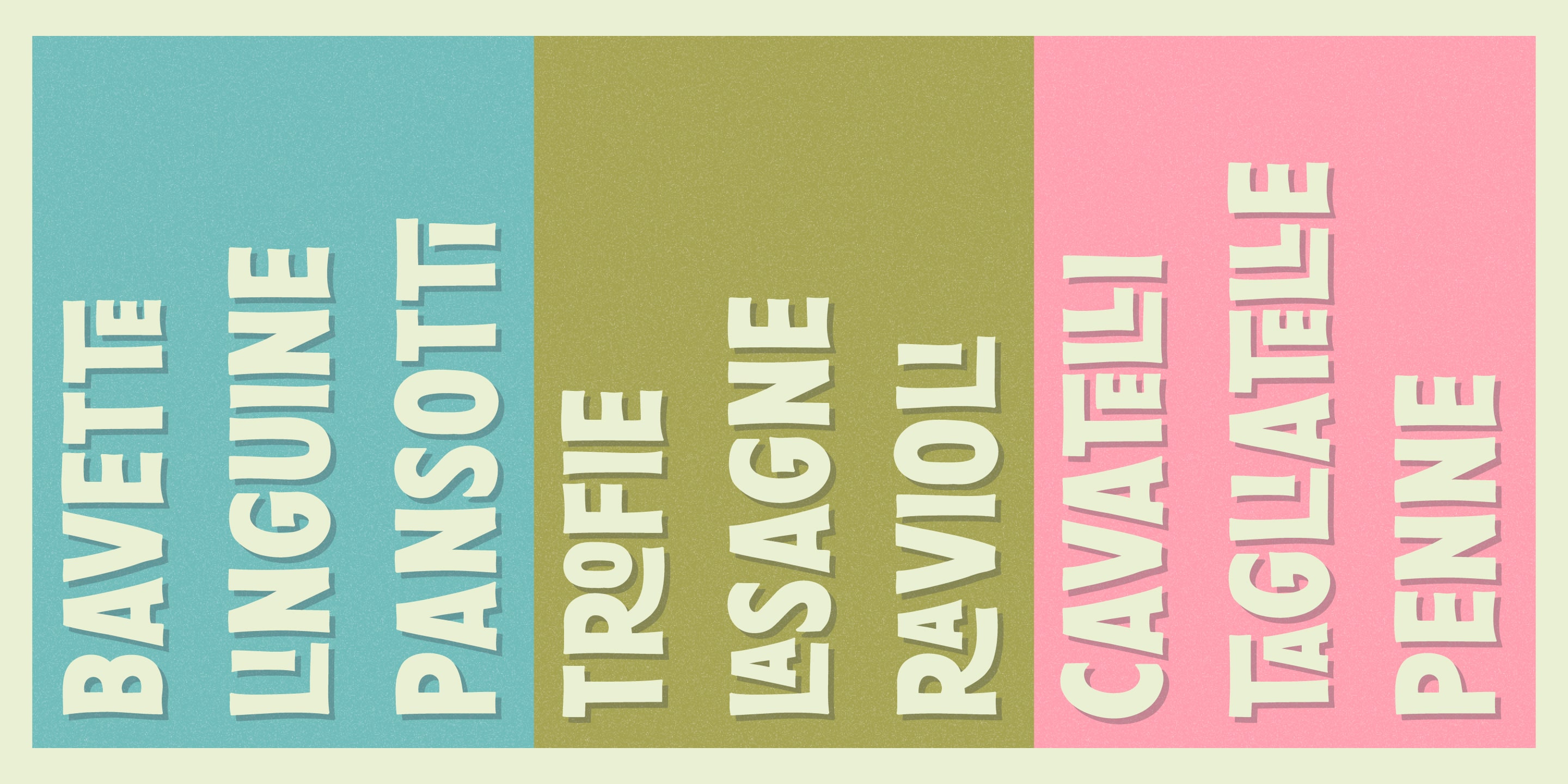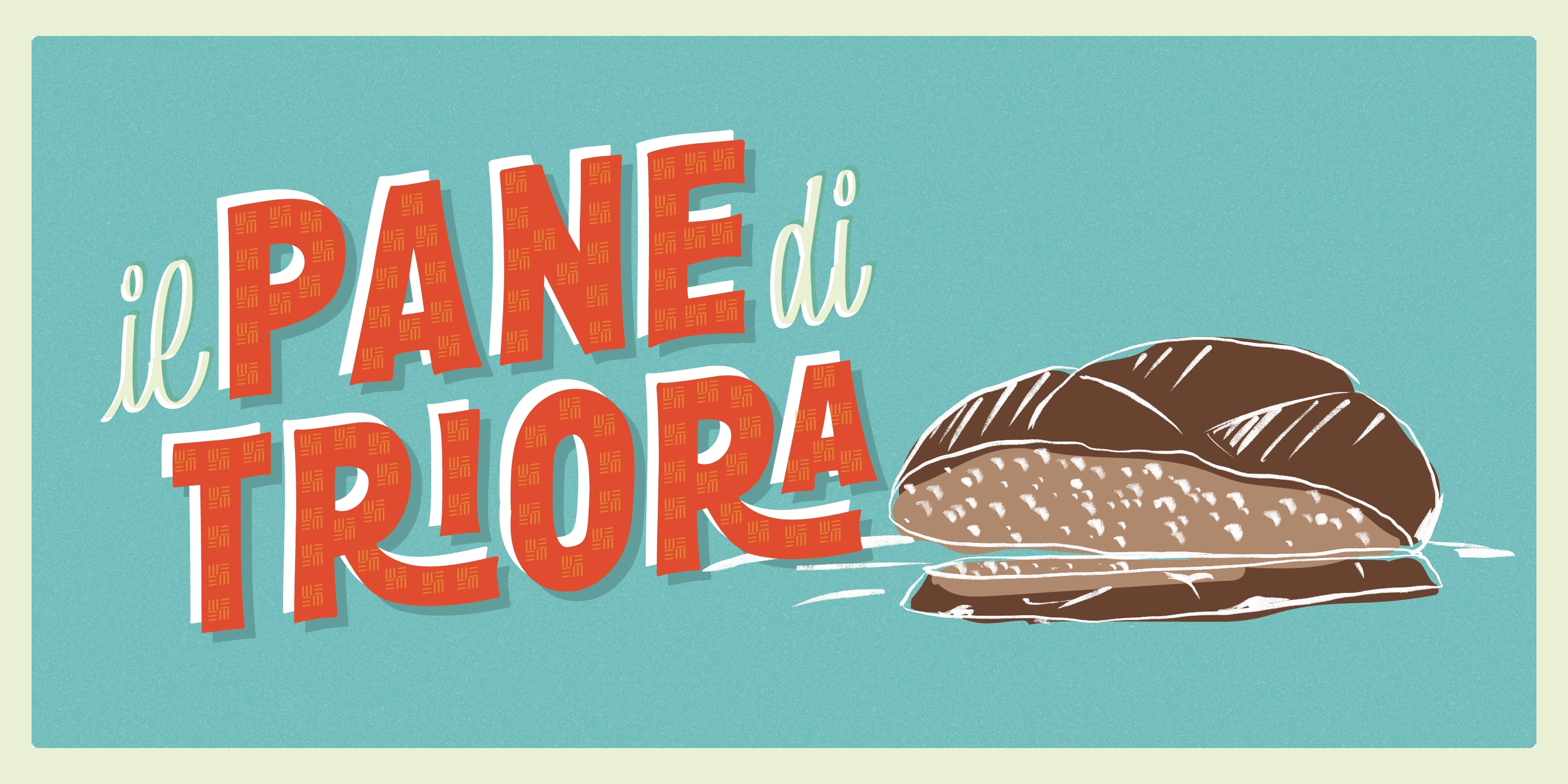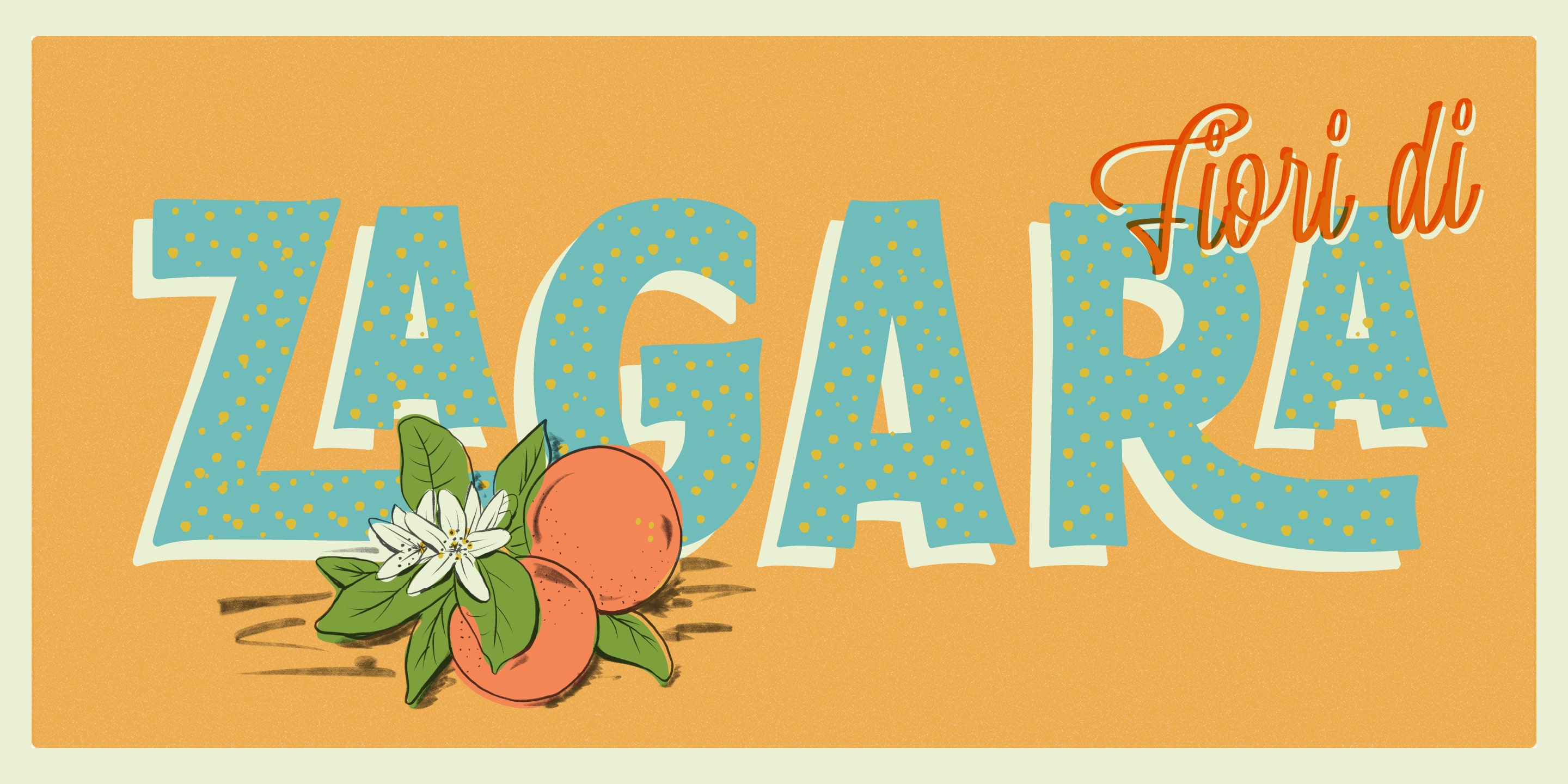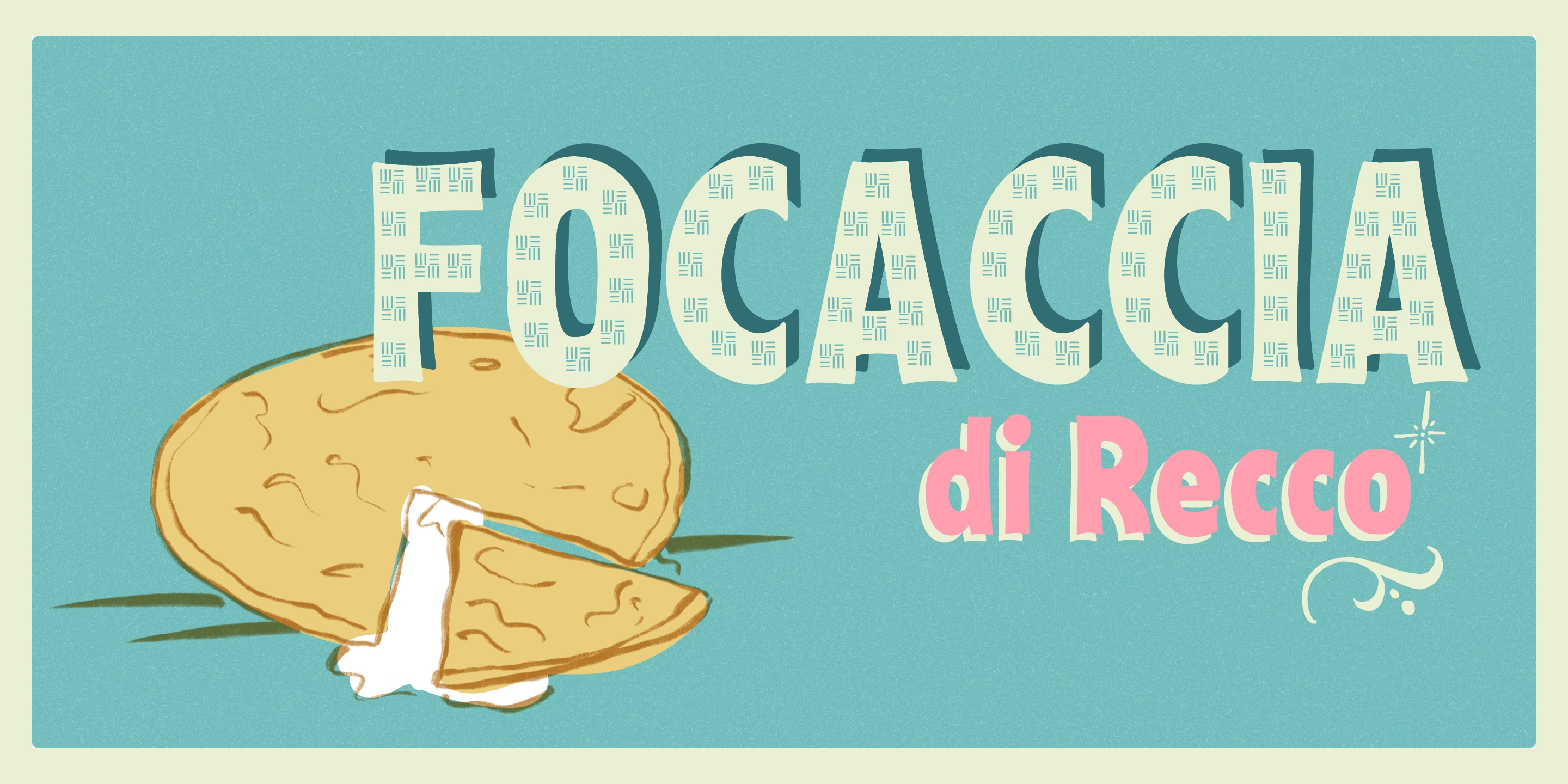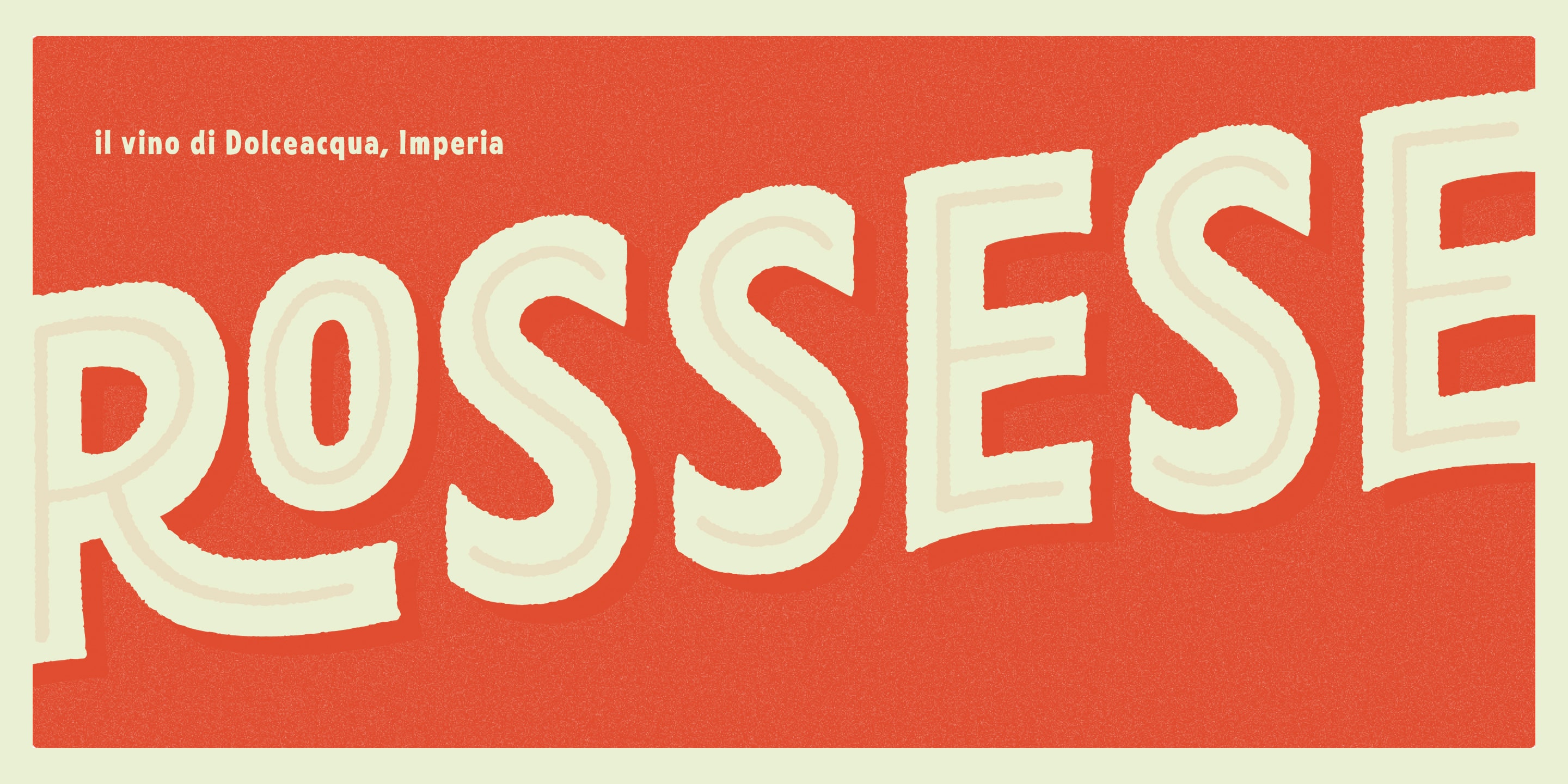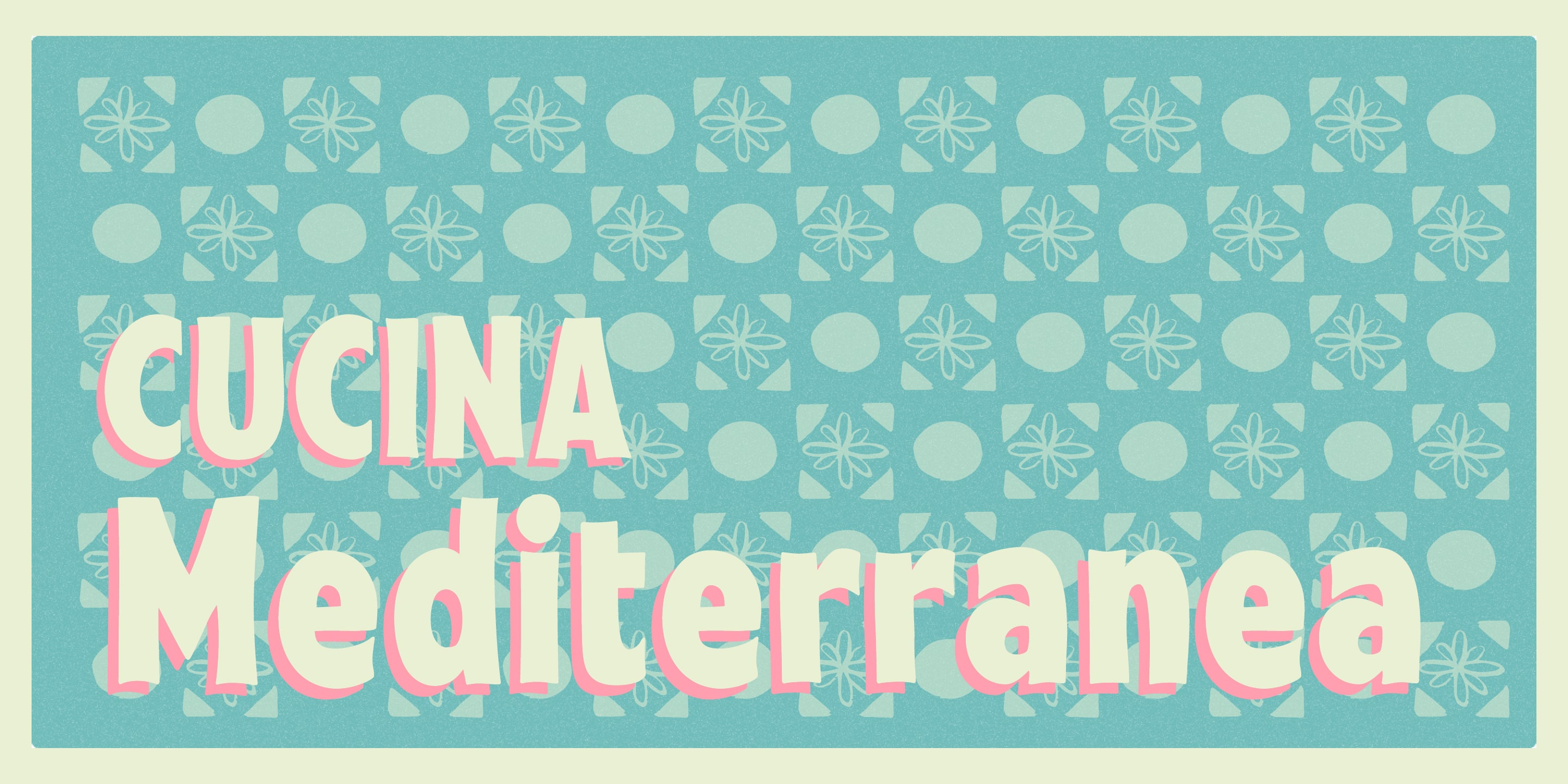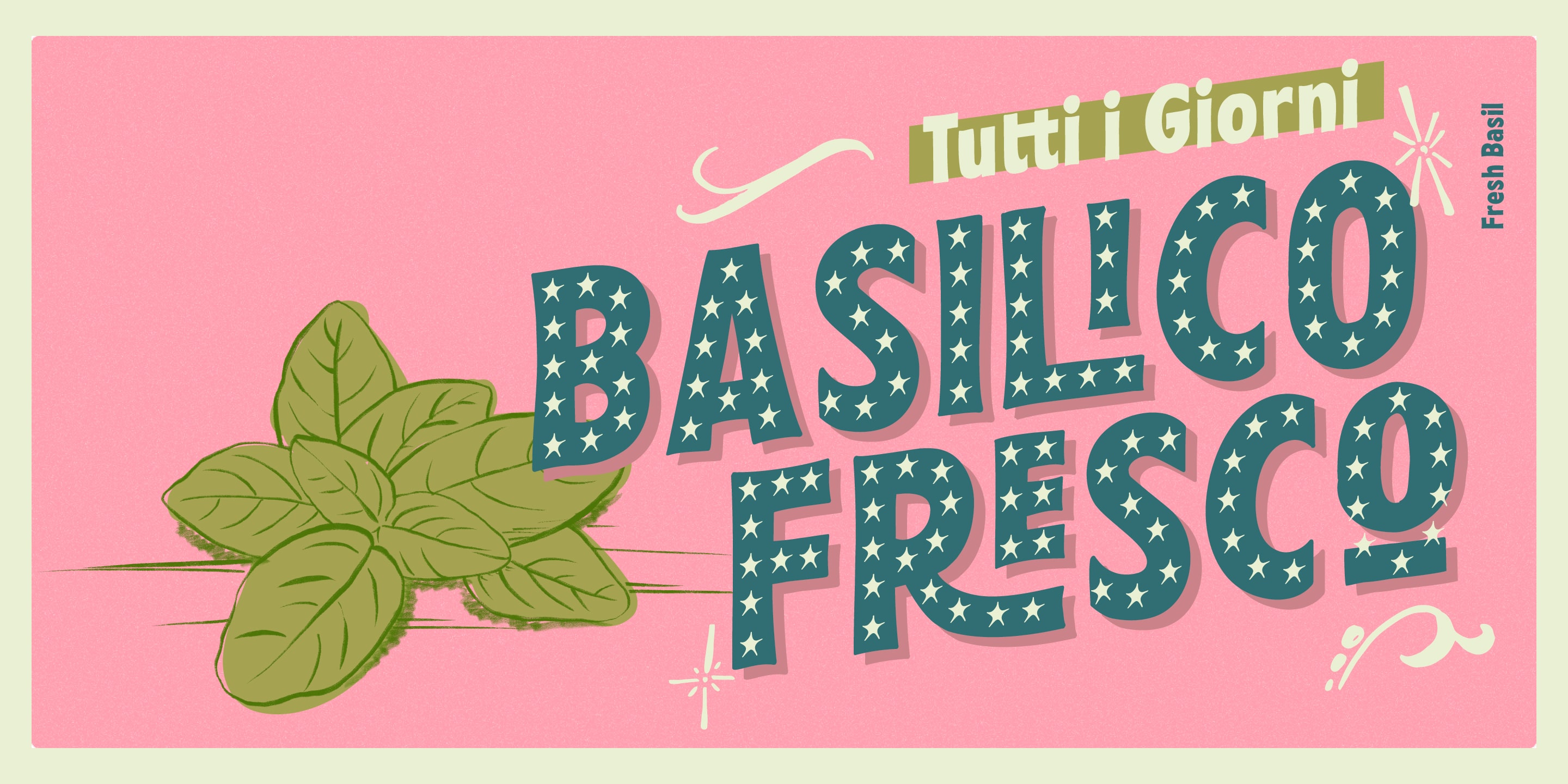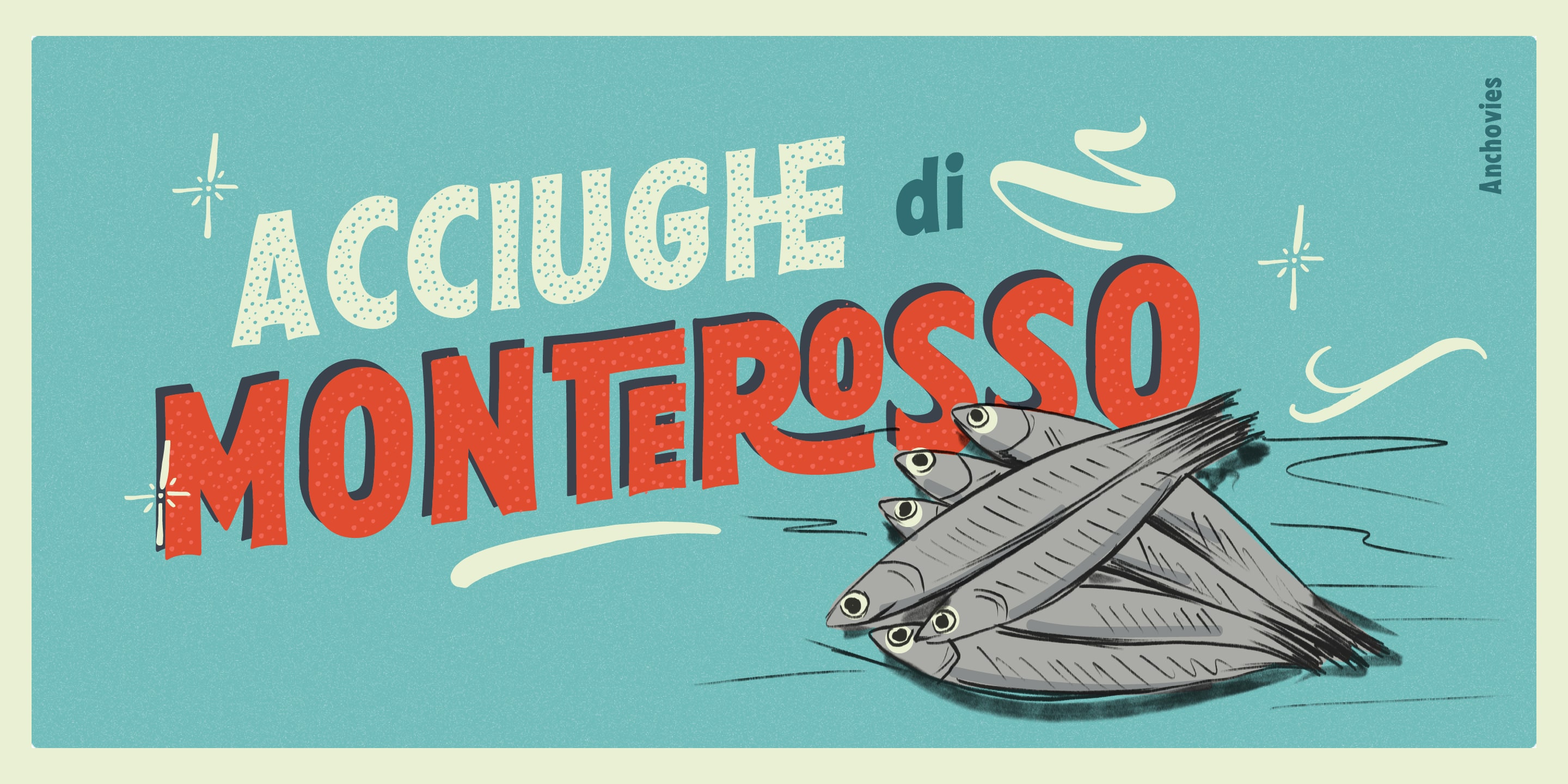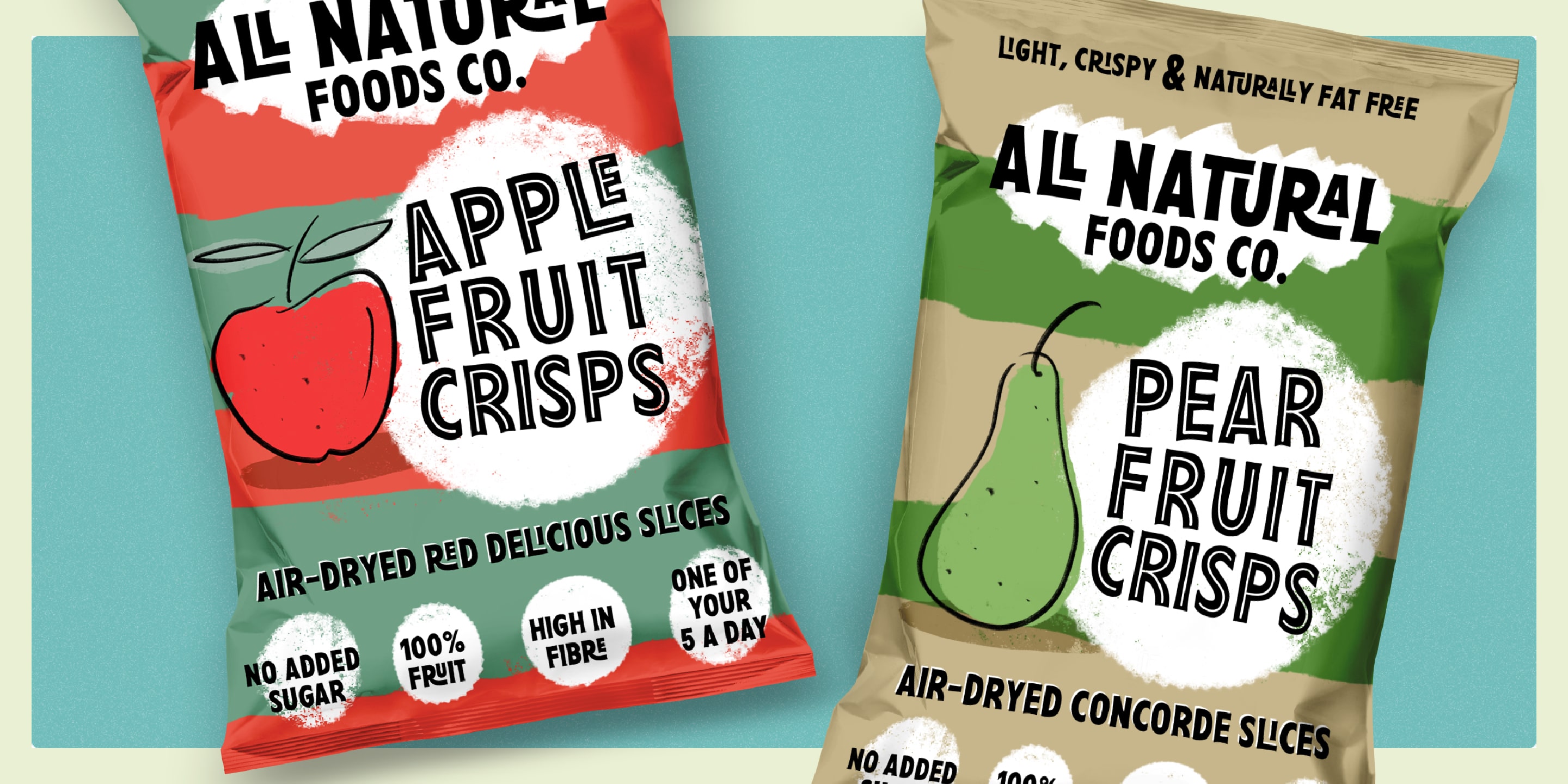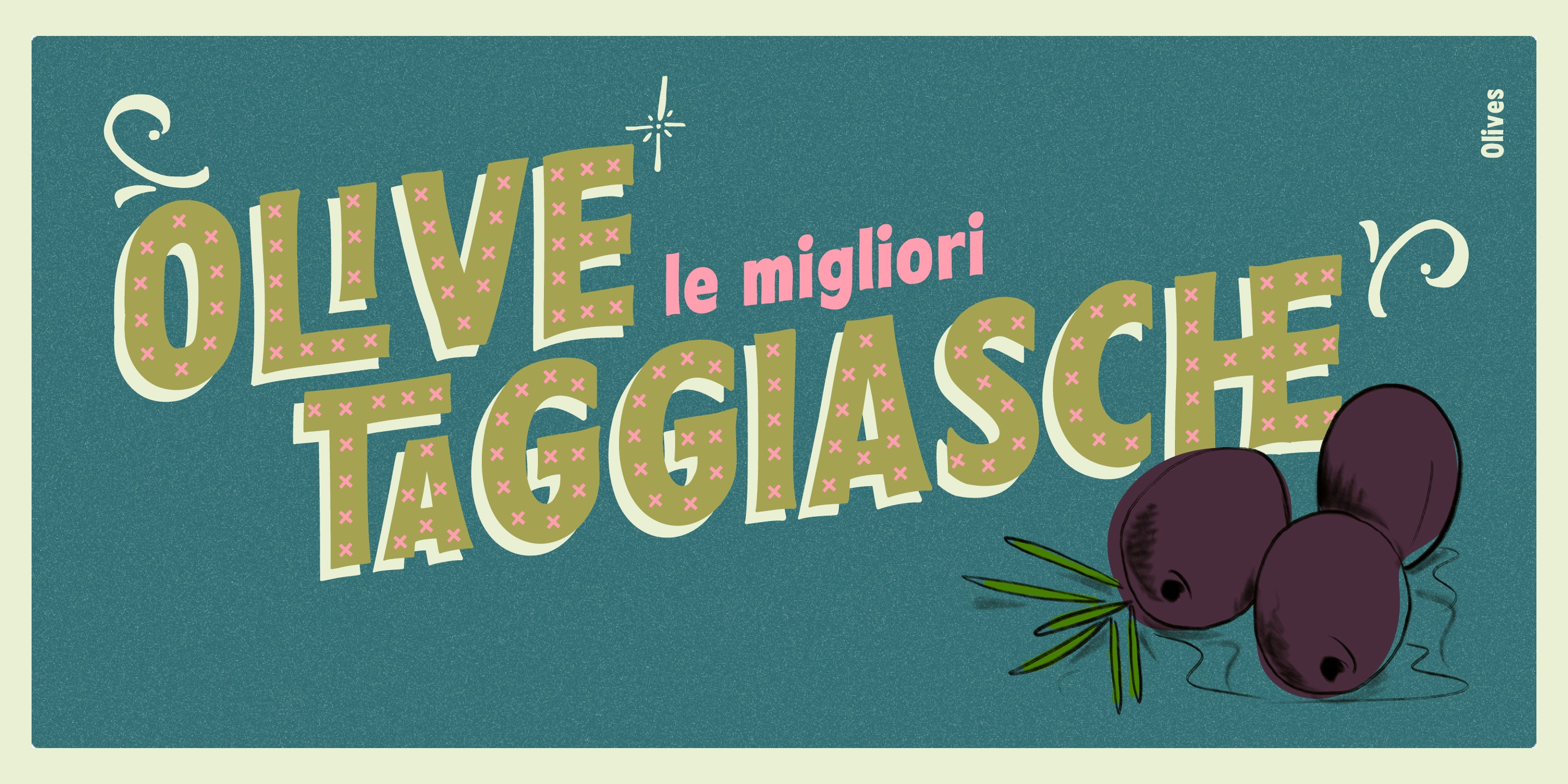
PestoFresco
Handwritten lettering system
Pesto Fresco
Designed by Resistenza Type FoundryPesto Fresco is not just your ordinary font family; it's a meticulously crafted lettering system designed to bring the warmth and authenticity of handmade typography to the digital realm. With 28 distinct fonts, this sans serif typeface exudes the charm and imperfections of artisanal lettering, infusing your designs with a DIY aesthetic and a distinctly human touch.
By overlaying Pesto Fresco Regular with any of its decorative counterparts, you can achieve a myriad of graphic effects, allowing you to tailor the typography to suit your specific design needs.
Discover the richness of Pesto Fresco's typographic palette with its extensive collection of ligatures, accessible through OpenType features included in this font. These ligatures offer a seamless fusion of letterforms, enhancing readability and aesthetic appeal.
From packaging design to digital layouts, this font family seamlessly integrates into both digital and print environments. Its versatility guarantees that whether you're shaping a brand identity, designing a website, or crafting attention-grabbing advertisements, Pesto Fresco serves as the ideal typographic cornerstone for your vision.
Pesto Fresco stands out as a breath of fresh air—a reminder of the beauty found in imperfection, the charm of the handmade, and the enduring appeal of vintage design.